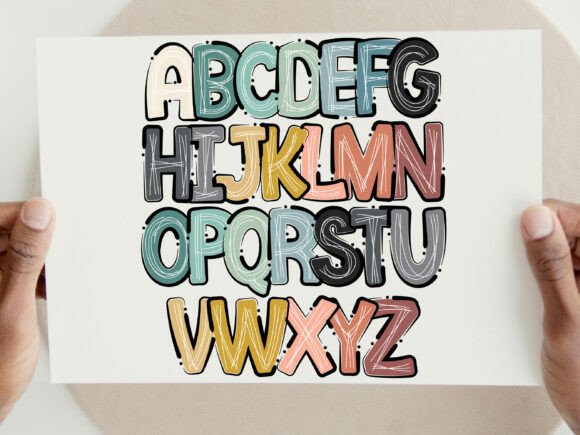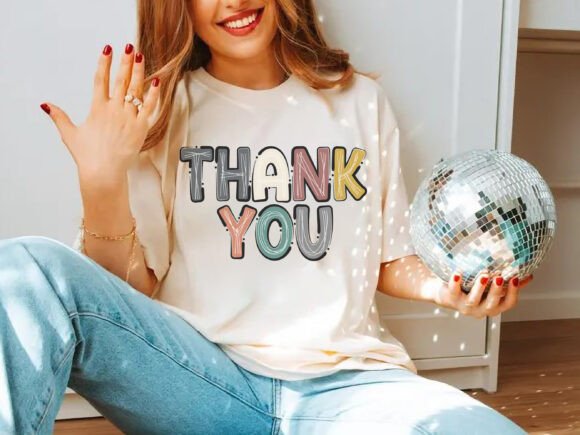
Boho Scribble Letter Font
Boho Scribble Letters refer to a playful and artistic style of typography. This style often features hand-drawn or doodled letters that convey a sense of creativity, whimsy, and personal expression. Perfect for weddings, graphics, posts, and stories to add a touch of personality and creativity.